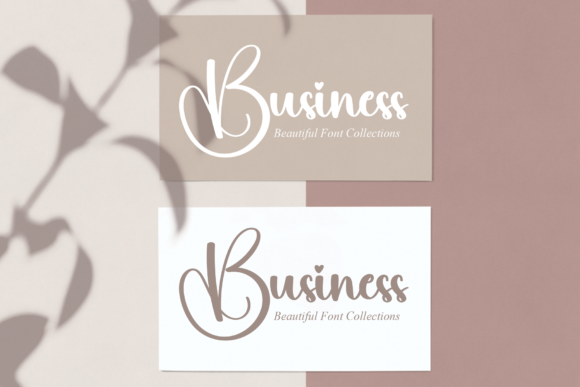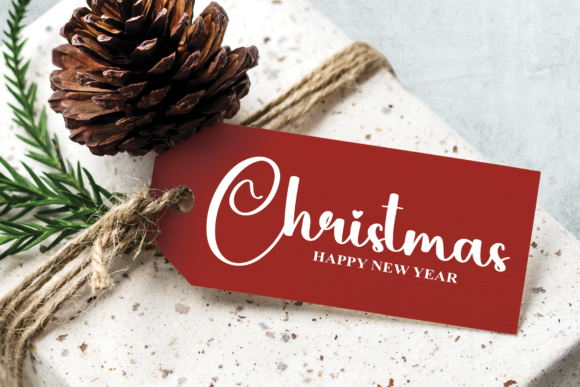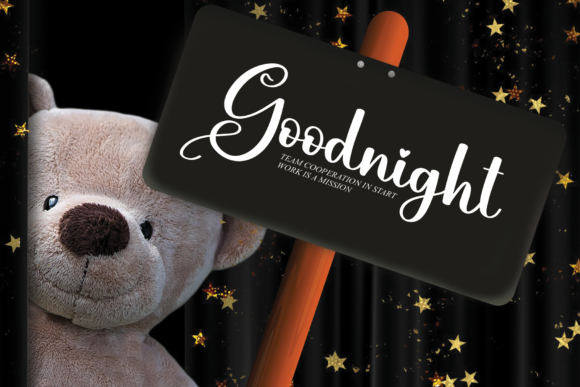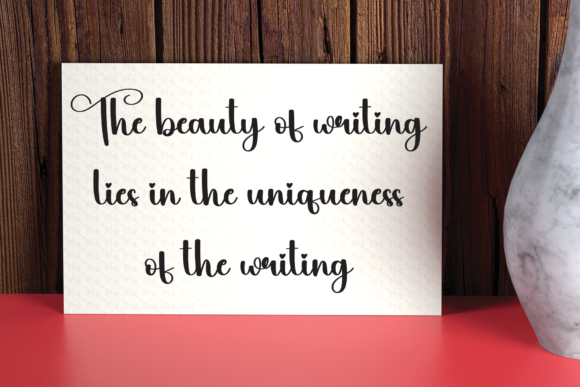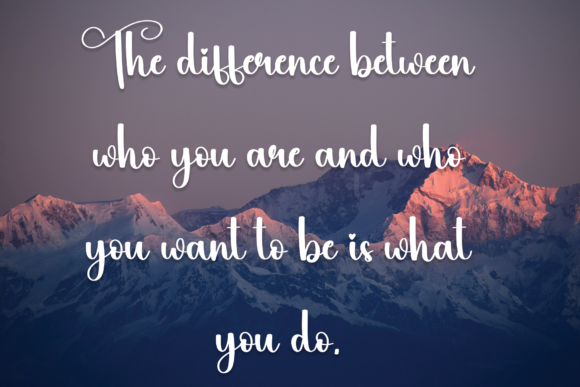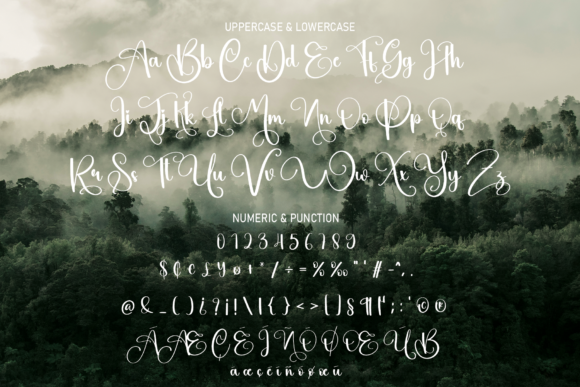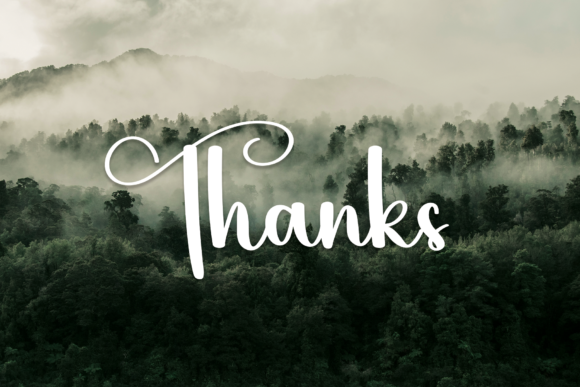
Nature Font
About Nature Font
“Nature” is a captivating script font that seamlessly blends beauty with romance, featuring hearts for dots and elegant swashes. This font possesses the enchanting ability to infuse a romantic atmosphere into your designs, making it an ideal choice for a variety of applications, including wedding design, logos, invitations, social media posts, and more.
The unique charm of “Nature” lies in its thoughtful incorporation of hearts for dots and graceful swashes, creating a script font that not only communicates your message but also radiates a romantic and whimsical ambiance. This distinctive touch sets “Nature” apart, making it a perfect companion for projects that aim to evoke a sense of love and beauty.
In the realm of wedding design, “Nature” stands out as a font that truly speaks the language of love. Its romantic script, adorned with hearts, adds a special touch to wedding invitations, save-the-date cards, and other matrimonial materials. The font’s ability to convey a romantic feeling makes it a delightful choice for couples looking to capture the essence of their love story.
Logos crafted with “Nature” take on a unique and charming identity. The script font’s elegant curves and heart details create a visual signature that resonates with brands aiming to evoke emotions. Whether it’s a brand rooted in romance or one that seeks a touch of sophistication, “Nature” adds a personalized and romantic flair to logo designs.
Invitations become enchanting works of art with the inclusion of “Nature.” The font’s romantic script and decorative elements elevate invitation designs, making them visually appealing and memorable. Whether it’s for formal events, celebrations, or special occasions, “Nature” ensures that your invitations exude charm and sophistication.
Social media posts come alive with the romantic vibe of “Nature.” Whether you’re sharing love quotes, relationship milestones, or simply expressing heartfelt sentiments, the font’s script style enhances the emotional impact of your content. Stand out in the crowded digital landscape with “Nature’s” unique and captivating design.
The versatility of “Nature” extends beyond weddings and social media. Its romantic script is well-suited for various design applications, including posters, quotes, stationery, and more. Infuse a romantic and elegant touch into your creative projects, allowing “Nature” to be the element that elevates your designs to a new level of visual appeal.
In summary, “Nature” is not just a font; it’s an expression of romance and beauty. With hearts for dots and swashes, it brings a unique charm to your designs. Whether you’re working on wedding materials, logos, invitations, social media posts, or other creative projects, let “Nature” be the script font that enhances the romantic feeling of your design, creating a visual experience that resonates with emotions.